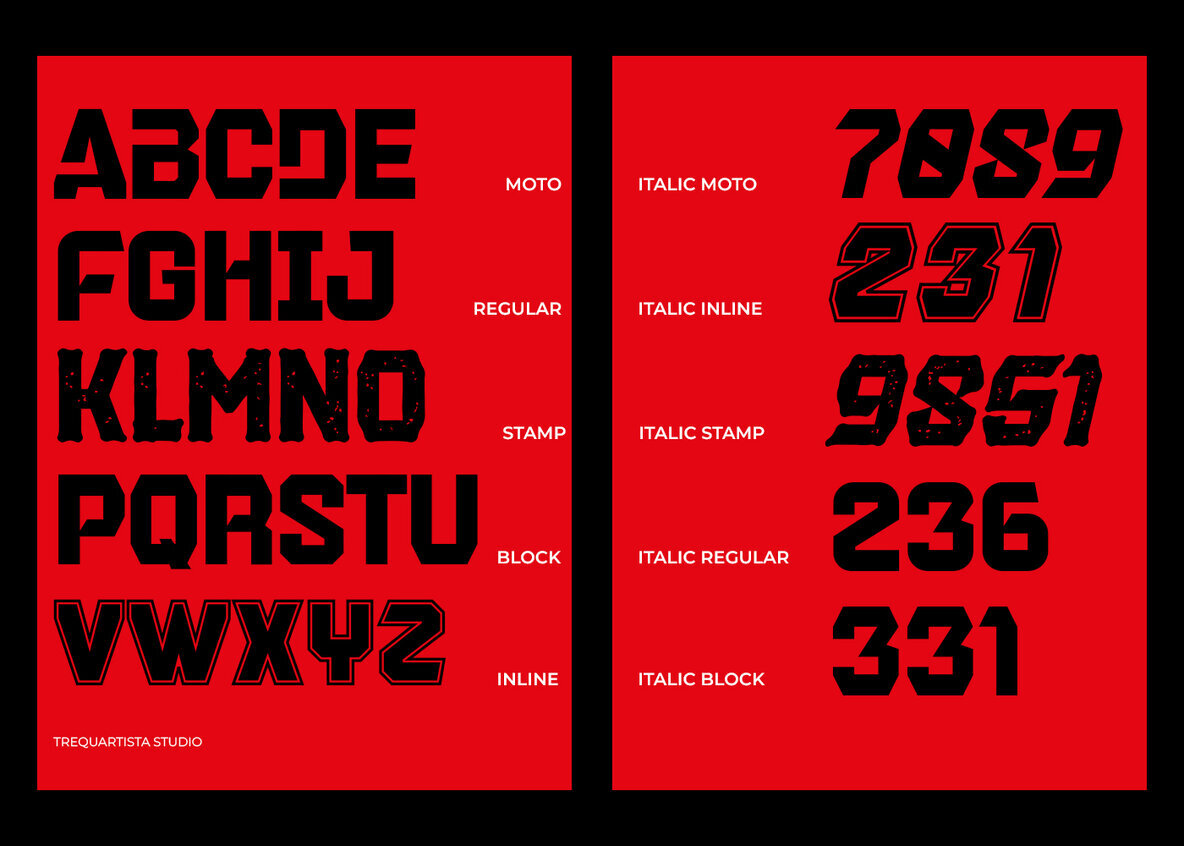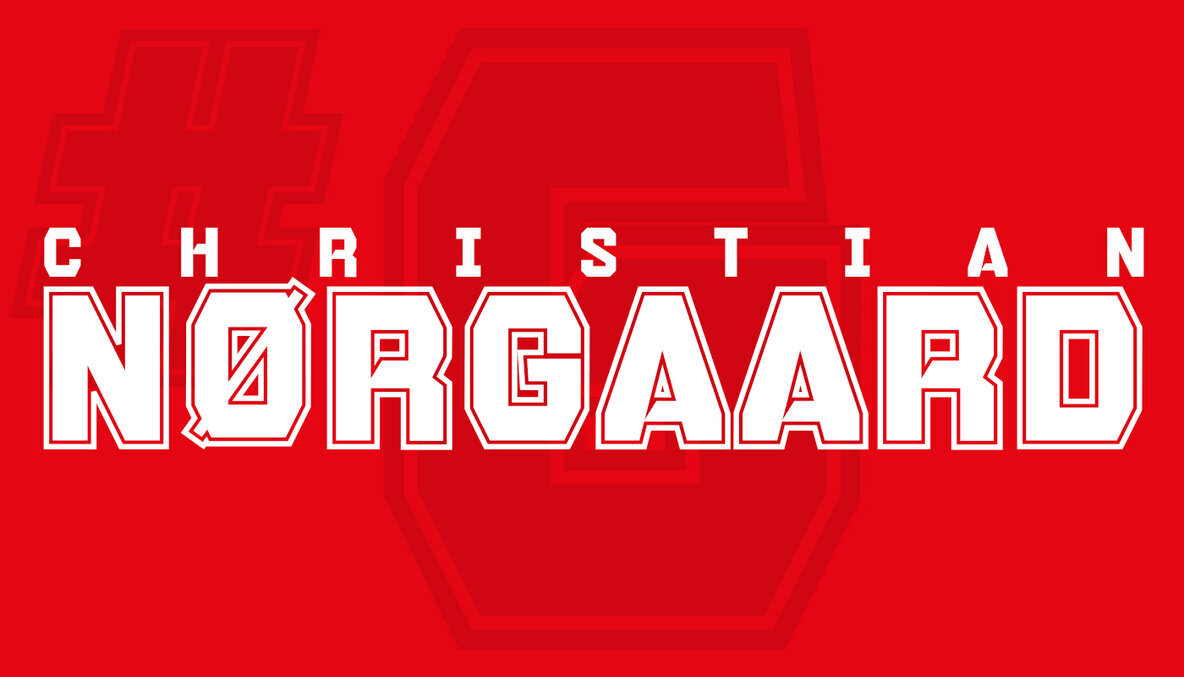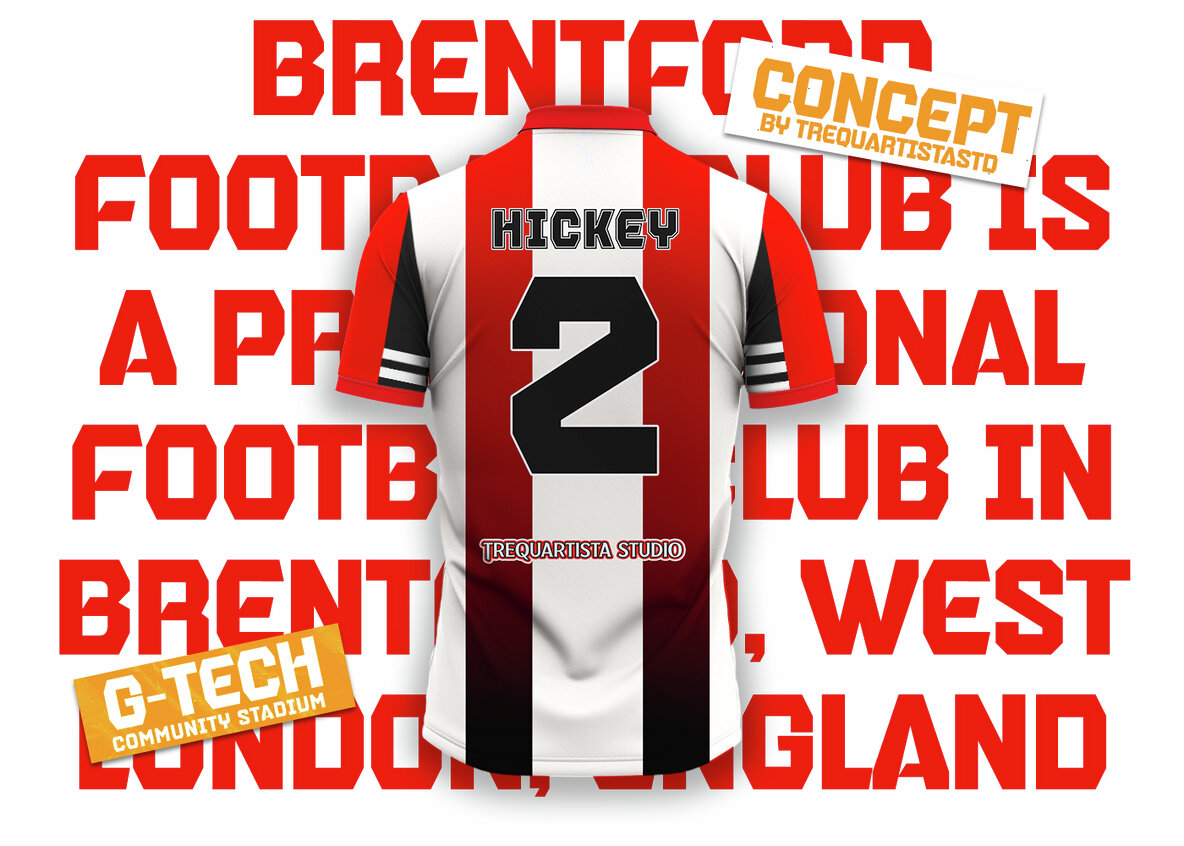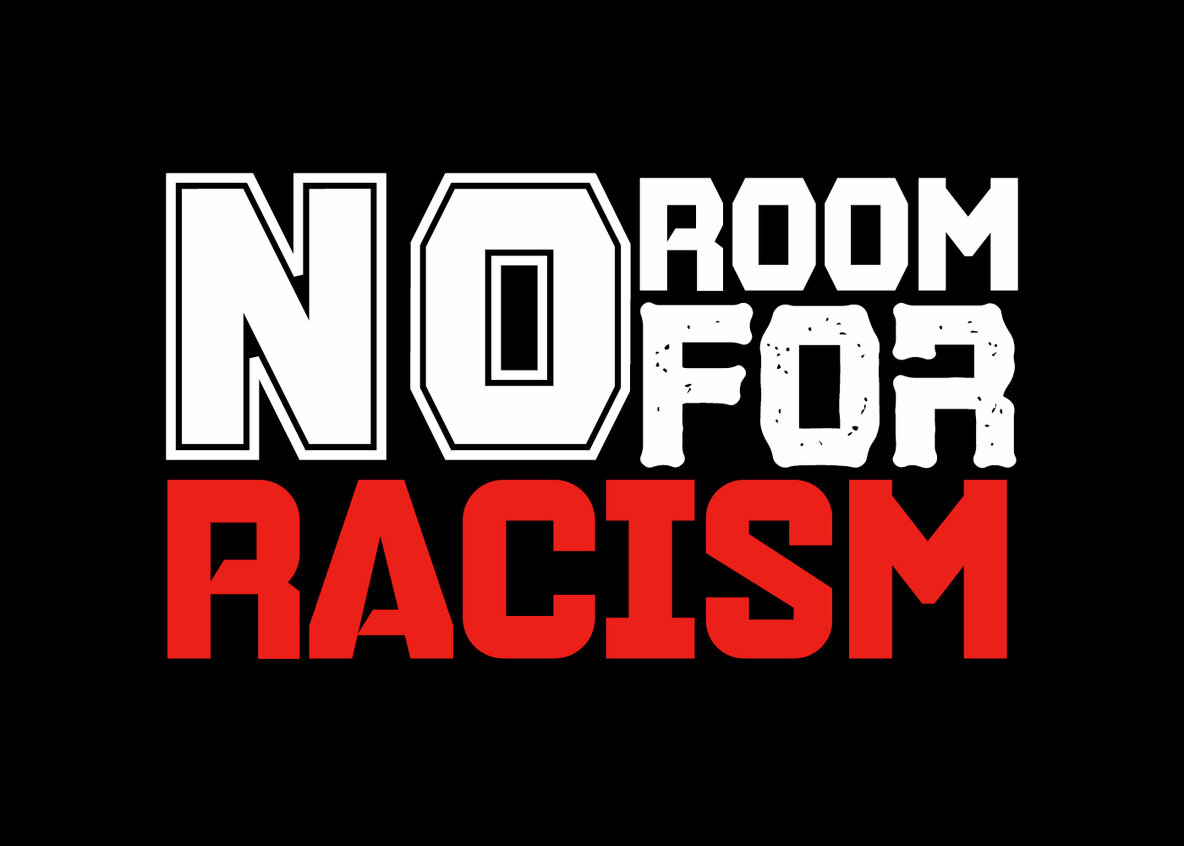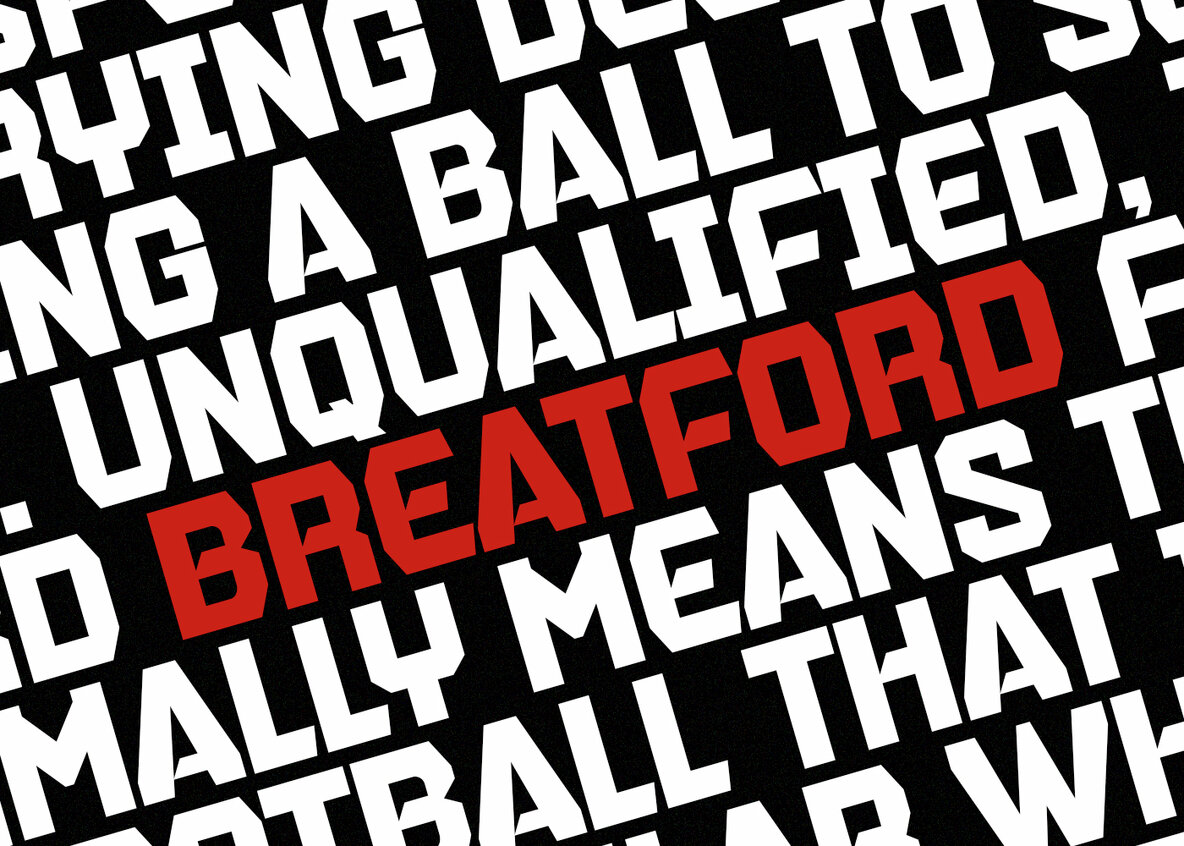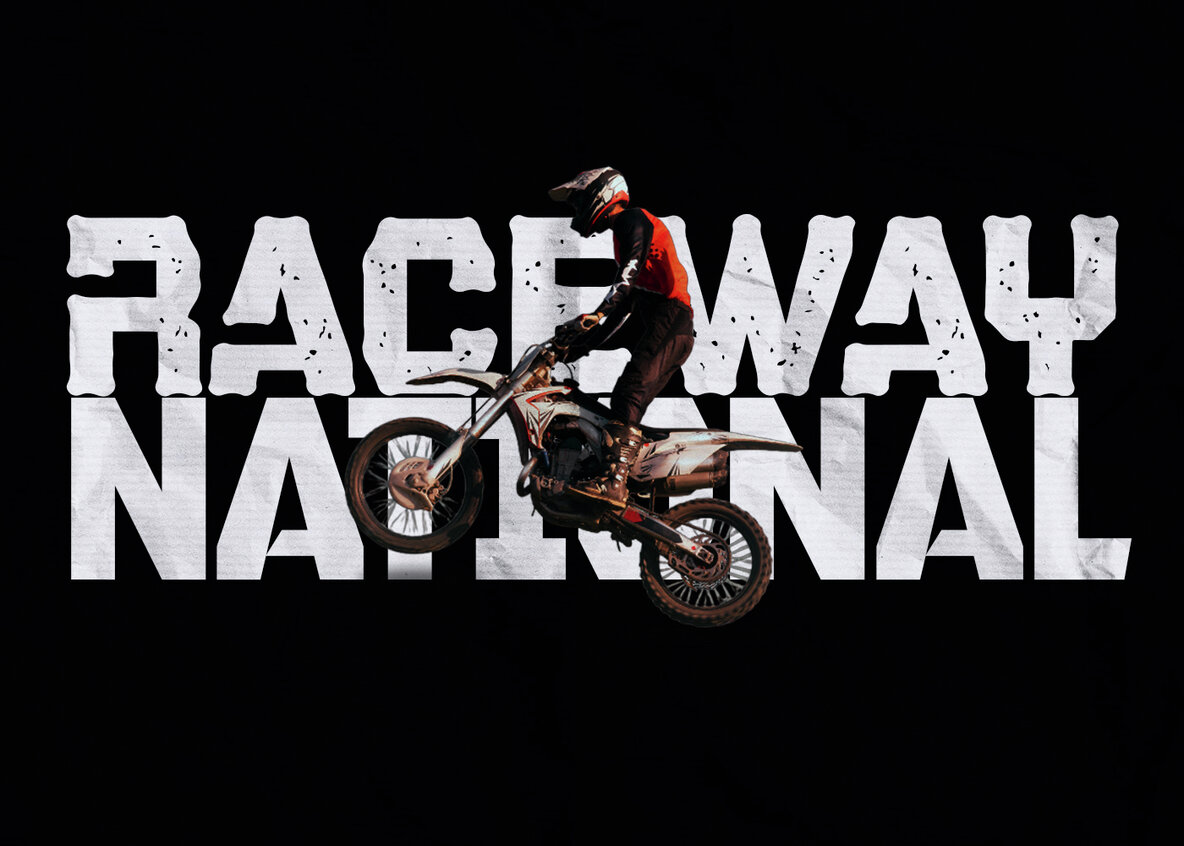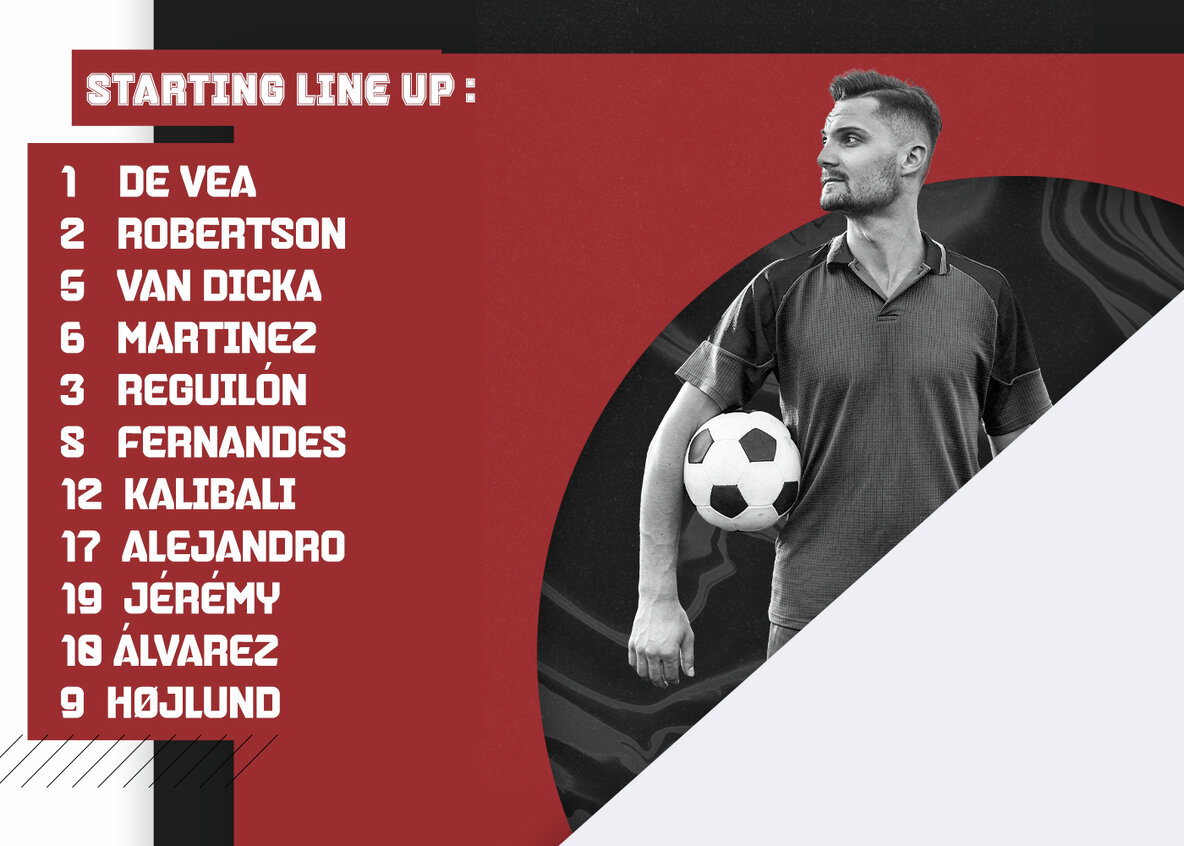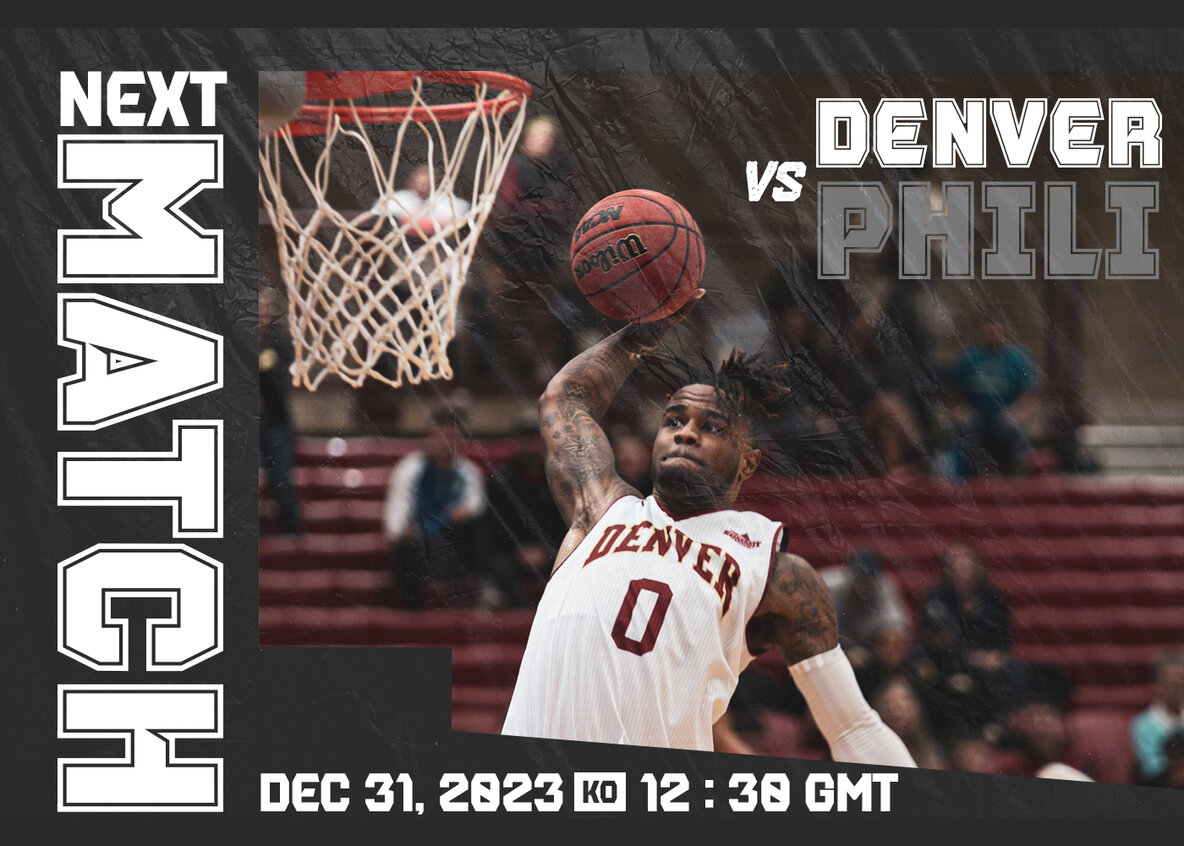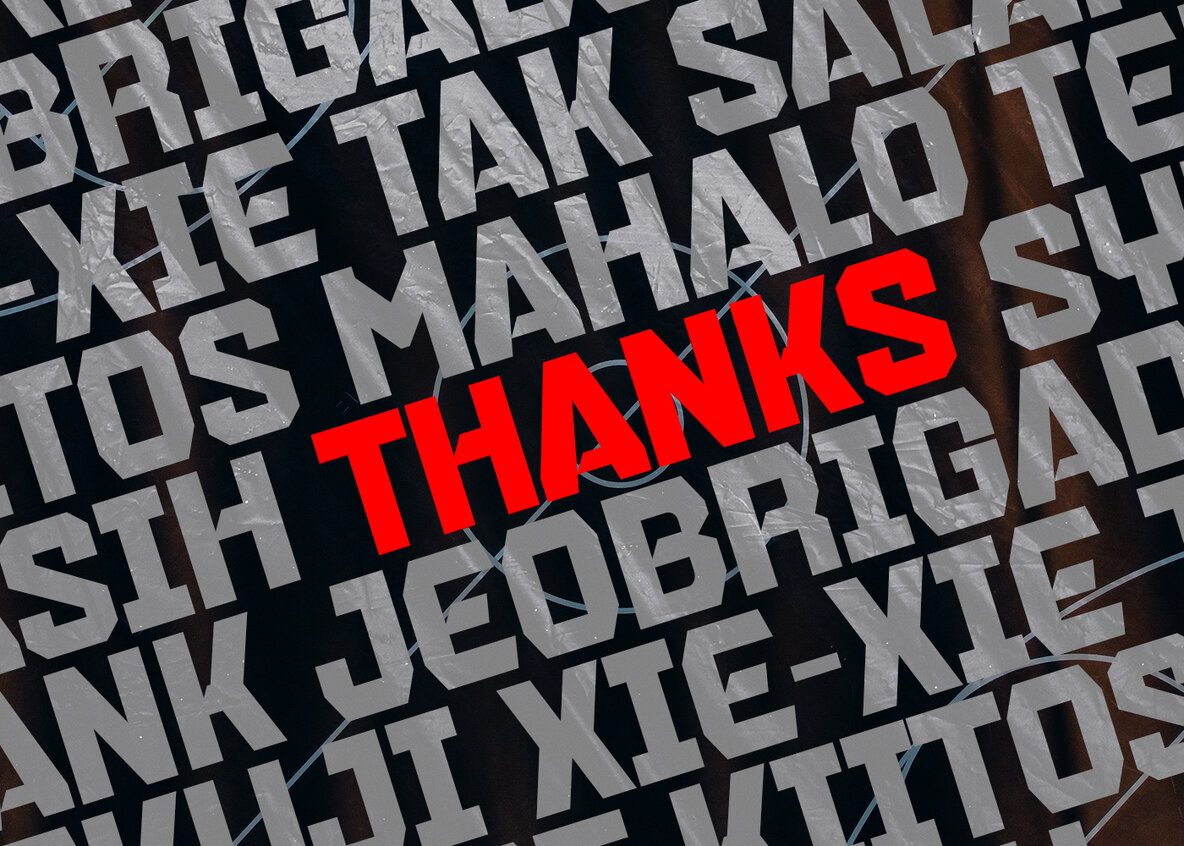
Brentford Font
Brentford is a strong sans serif font characterized by its medium contrast. This typeface embodies a clean, athletic aesthetic, enhanced with a short ascender for a solid appearance and sharp serifs that add strength to each letter. Brentford shines with bold and vibrant characteristics, making it ideal for headers, logos, captions, and posters. Its competitive appearance is particularly well-suited for the sports branding industry, yet it thrives in any project that seeks a strong, dynamic typeface.Brentford: A Robust Sans Serif Typeface